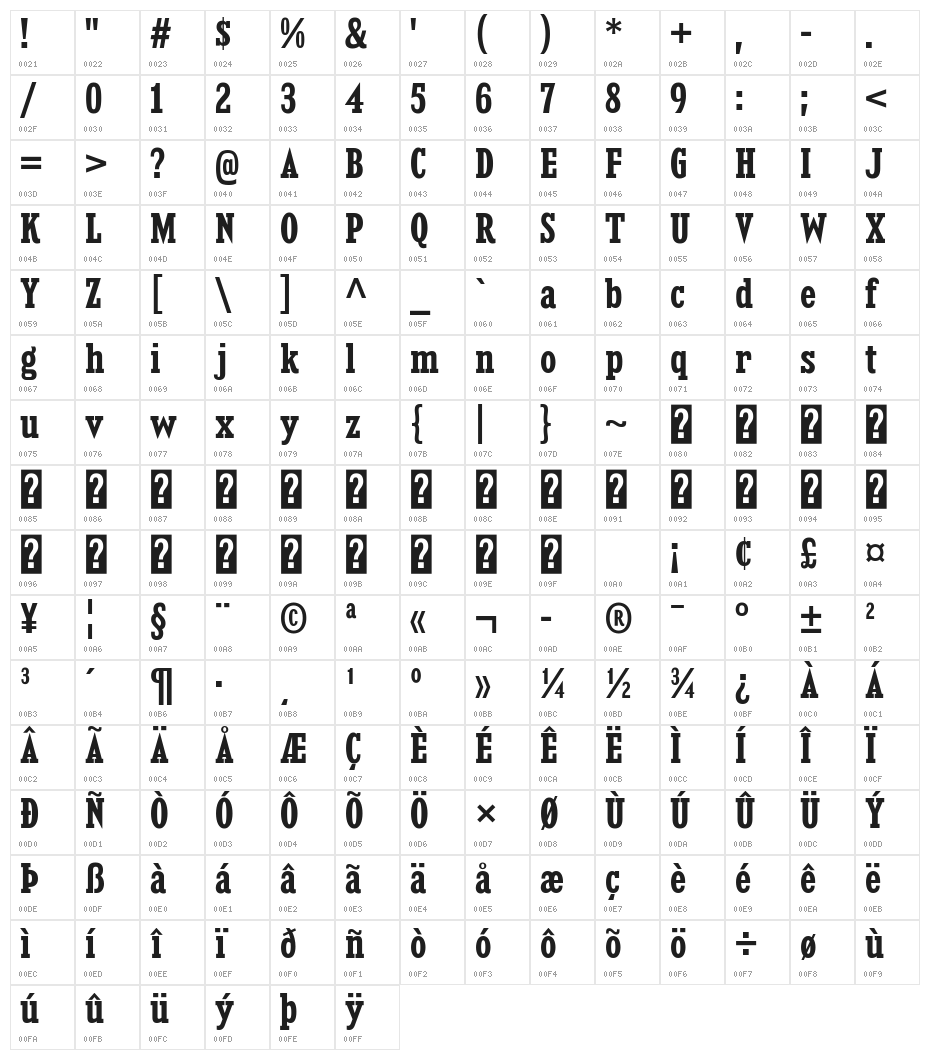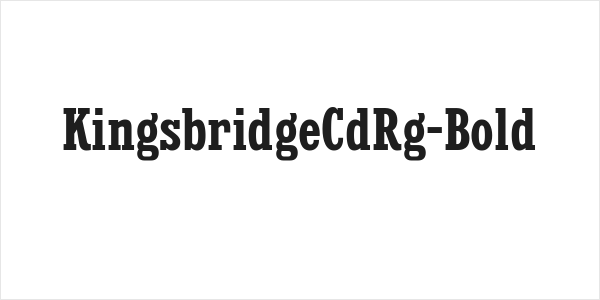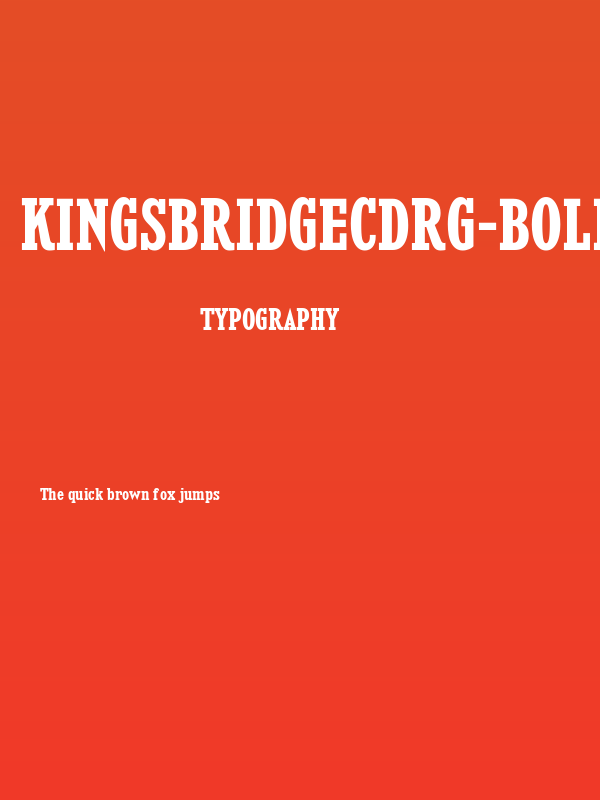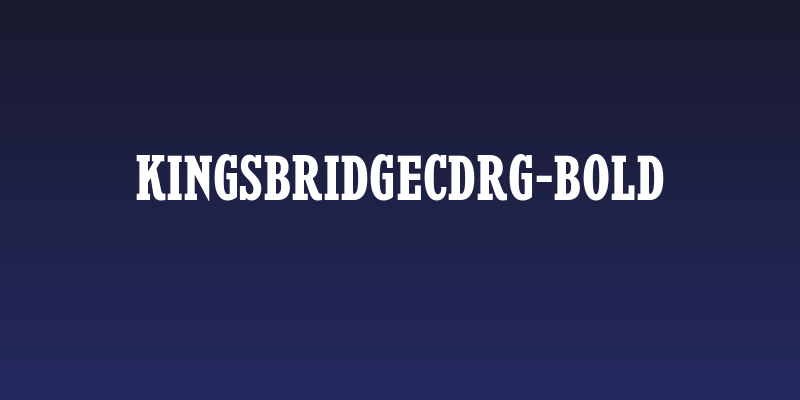
KingsbridgeCdRg-Bold Font
KingsbridgeCdRg-Bold Description
This typeface features bold, strong characters with a classic serif design. The letters are well-defined with thick strokes, providing a sense of authority and tradition. The uppercase and lowercase letters maintain a consistent style, with slightly condensed proportions that enhance readability. The numerals are robust and align well with the overall aesthetic, while the special characters are clearly defined and versatile. The font's bold weight and high contrast make it suitable for impactful designs, ensuring visibility and clarity in various applications.
| Proposed Projects | Ideal for headlines, posters, branding materials, and editorial design where a strong, traditional presence is desired. |